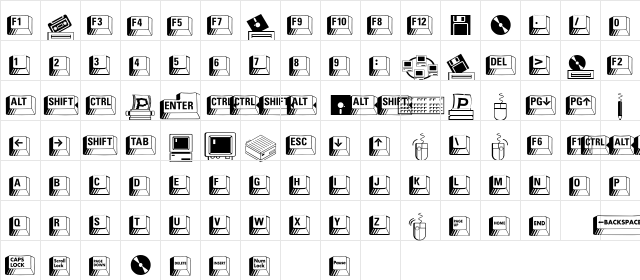
PC Keys Regular Free Font
PC Keys Regular
PC Keys Family
Design Context for PC Keys
PC Keys is a composed and adaptable typeface that performs quietly and consistently across a wide range of design contexts.